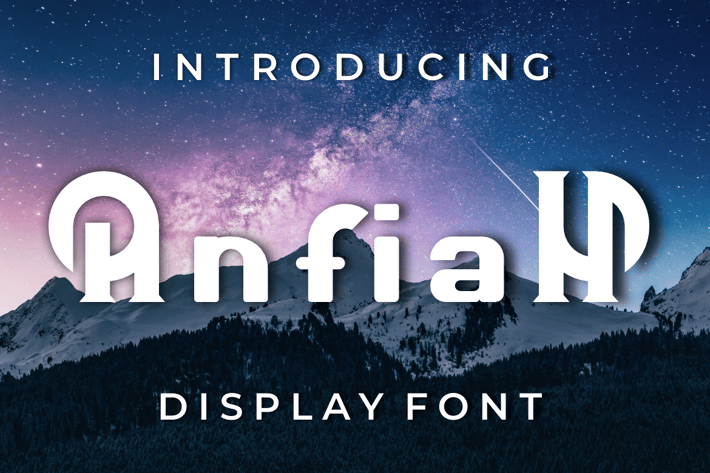
Anfiah Font
Introducing our new product Anfiah Fontt - Modern Font
Anfiah Font - Modern Font is a bold and authentic display font. The font is suitable for any branding project like logo, t-shirt printing, esport, and many more. outstanding in a wide range of contexts.